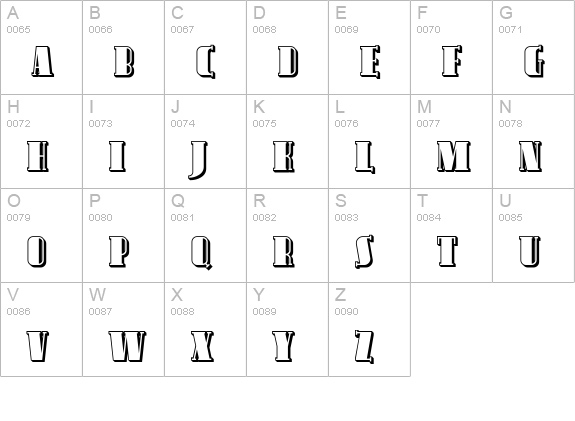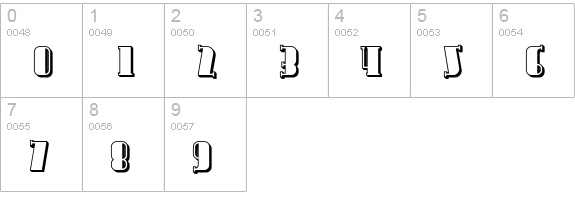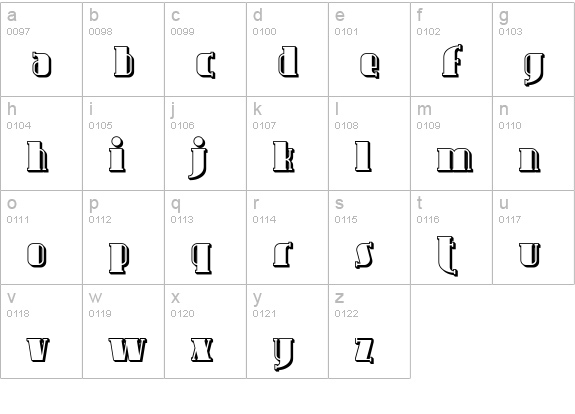
Avondale Shaded font is a beautifully designed typeface with a unique and eye-catching style. Its elegant curves and intricate shading give it a sophisticated and artistic look, making it perfect for various design projects. This font exudes a sense of creativity and charm, making it a versatile choice for both print and digital designs. What sets Avondale Shaded font apart is its ability to add depth and dimension to any text or headline. Whether used for logos, posters, invitations, or branding materials, this font is sure to make a statement and leave a lasting impression on viewers. The best part about Avondale Shaded font is that it is completely free to download at FontsMarket.com. This means that you can easily access this stunning font and use it in your projects without any cost. Don't miss out on the opportunity to enhance your designs with the beauty and elegance of Avondale Shaded font. Download it today and elevate your creative projects to the next level!